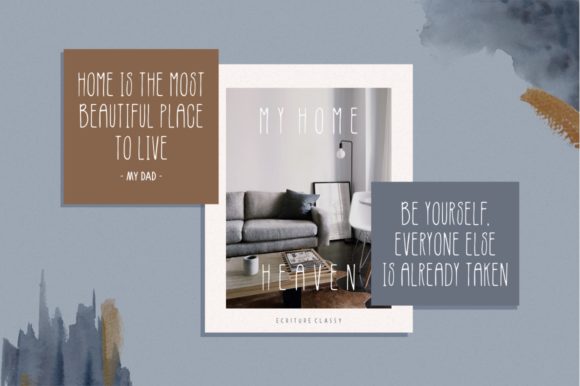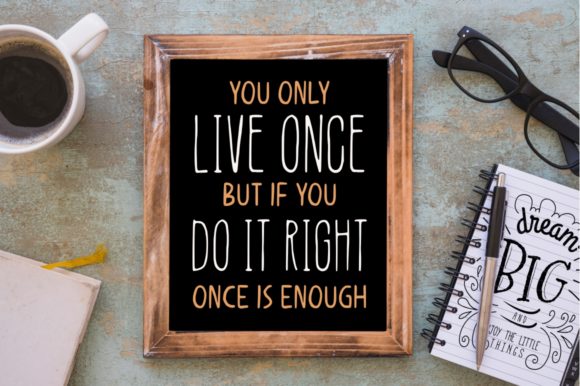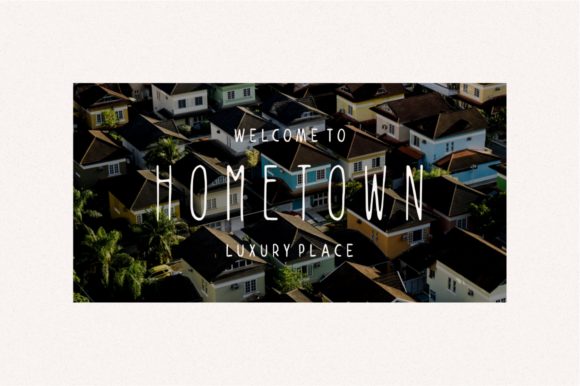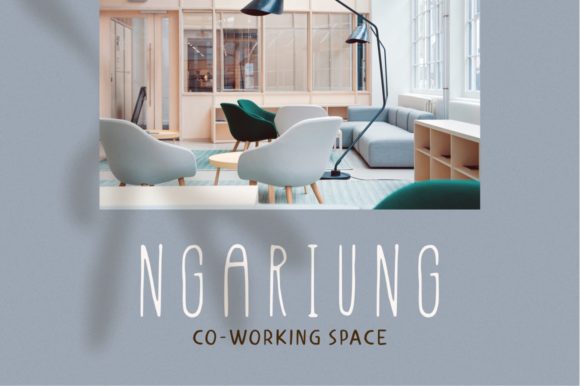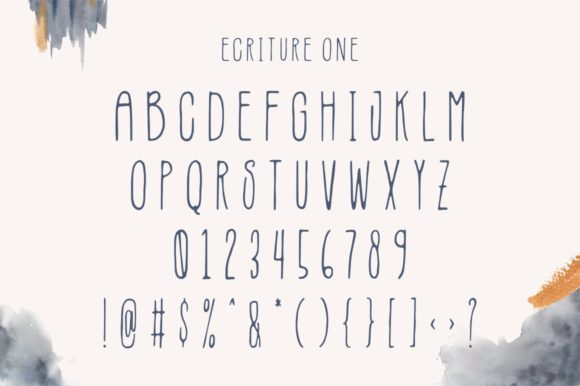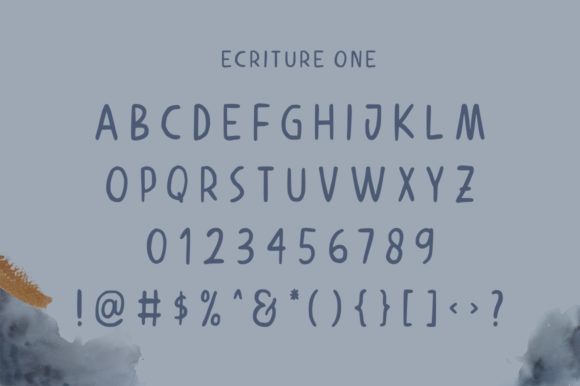
Introduction to Ecriture Font
Ecriture comes in 3 classy styles, Regular, Two and Italic.
This slightly experimental display font feels raw and unfiltered, which makes it great for adding a down-to-earth feel to any design project .